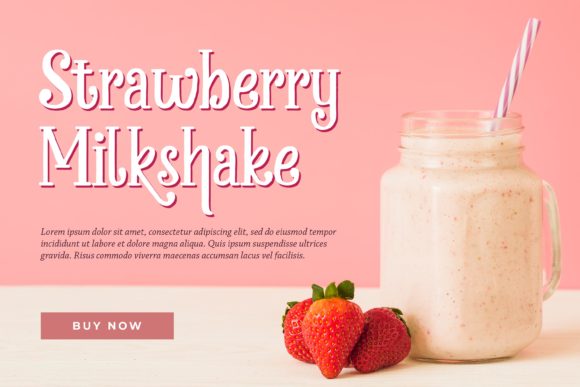
Chickens Lovers is a cute and playful display font that will make any designs look modern, unique and fun. This font is the perfect fit for all of your logos, branding, social media, and crafty DIY projects.